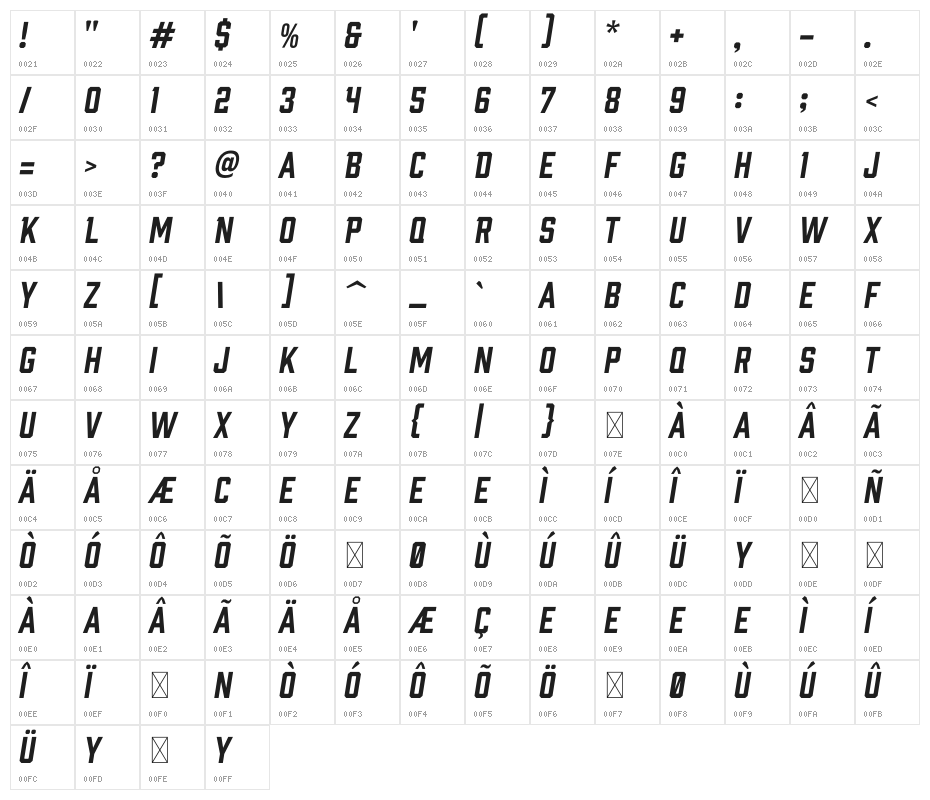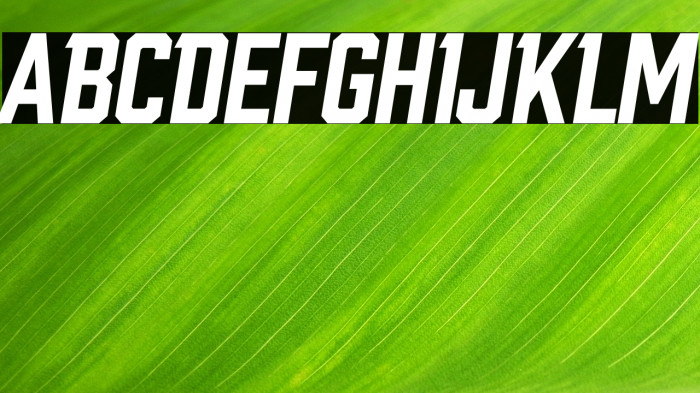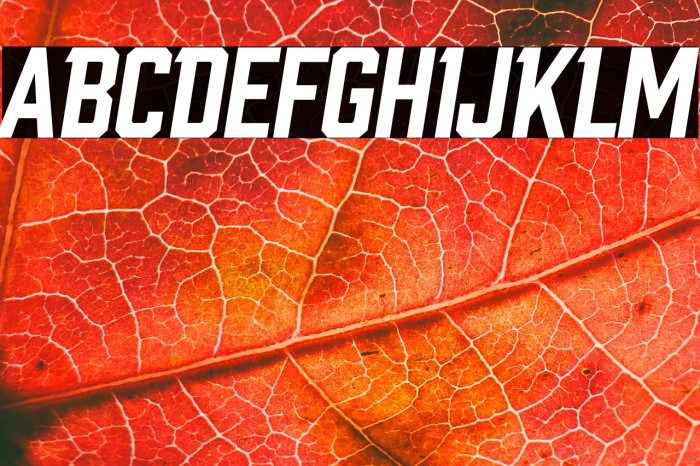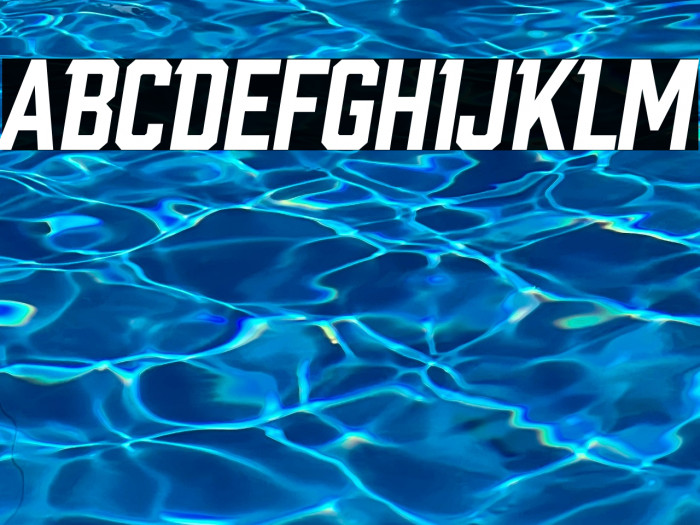
Link Start Italic Font
Link Start Italic Description
This font exhibits a bold, italicized style with a modern and dynamic appearance. The characters are sharply angled, giving them a sense of movement and energy. The uppercase letters are uniform in height, while the lowercase letters maintain a consistent baseline, enhancing readability. The numerals are distinct and easily distinguishable, matching the boldness of the alphabetic characters. Special characters are well-integrated, maintaining the font's cohesive style. The overall design is sleek and contemporary, suitable for projects that require a strong visual impact.
| Proposed Projects | Ideal for sports branding, dynamic posters, and modern advertising campaigns. |